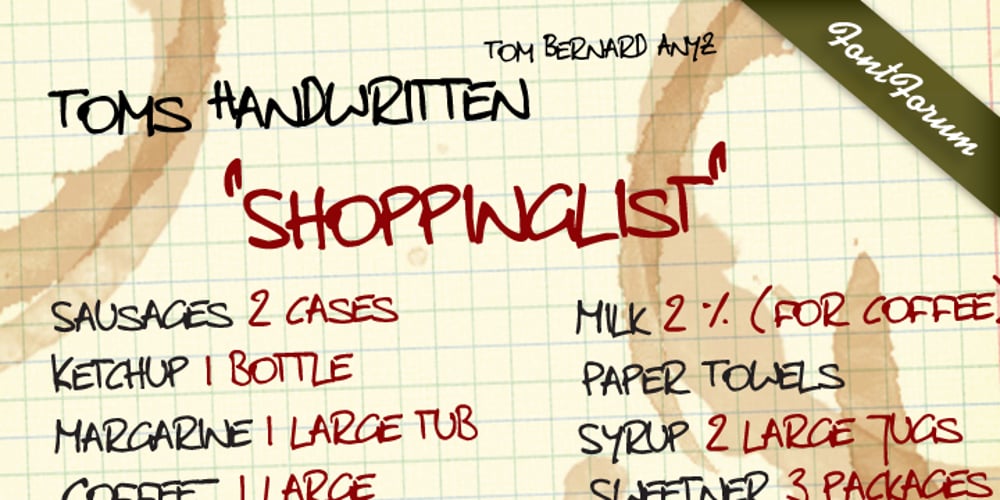
Toms Handwritten Font Family was designed by Tom Bernard Anyz and published by URW Type Foundry. Toms Handwritten contains 1 styles and family package options. This handwritten font was brought to our attention by one of our customers. Tom Bernard Anyz had offered his handwriting font at dafont.com, a free-font portal for private customers where Toms Handwritten is enjoying great popularity. We liked the design at first glance – it is so innocent and sketch-like, similar to a quick note or message. We reworked and completed Toms Handwritten for professional usage. Apart from the already available Latin character set for West and East, we also added Greek and Cyrillic.